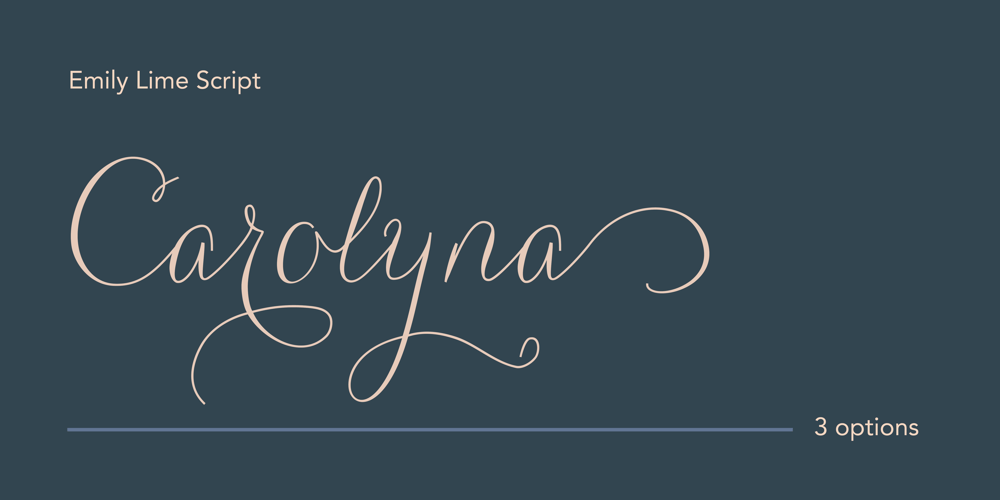
Carolyna Font Family was designed by Emily Conners and published by Emily Lime. Carolyna contains 3 styles and family package options. Carolyna is an elegant, yet whimsically handwritten calligraphy font that was created with readability in mind. It uses open-type features to assist with letter flow and to give each creation that modern, hand-lettered touch. With over 1000 characters, there are many stylistic alternates to choose from, tons of foreign characters so you can write in other languages, and fun swashes to give headings a little something extra. Note: The Pro version contains ALL characters – but if you can’t use open-type, I highly recommend opting for one of the other options where what you see is exactly what you get!